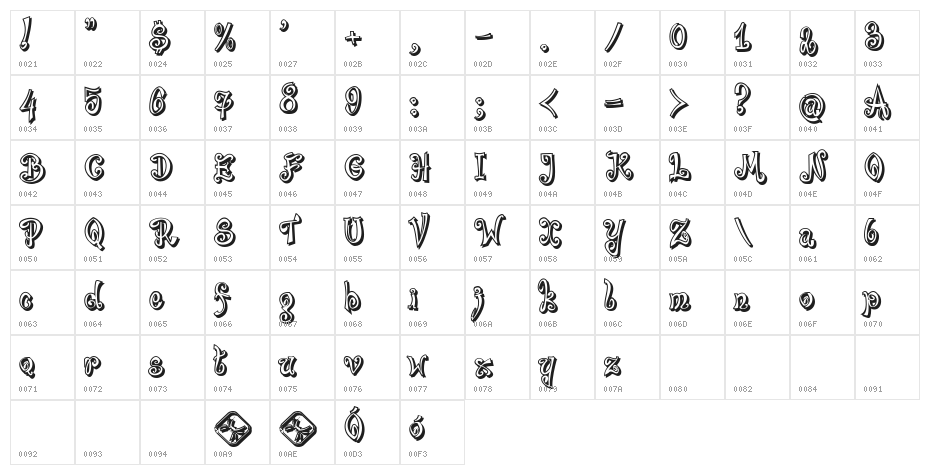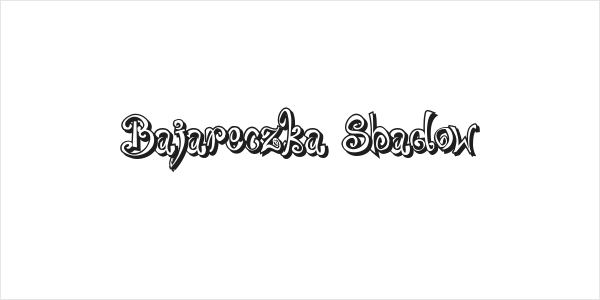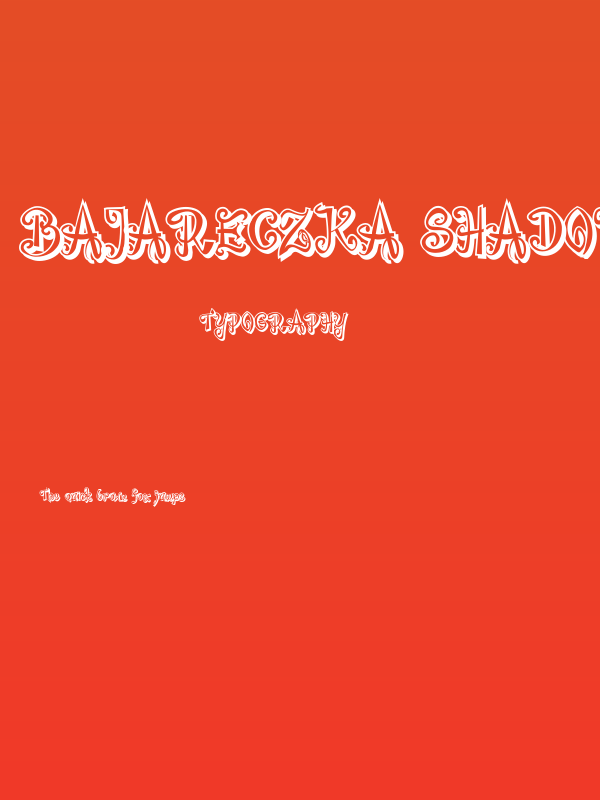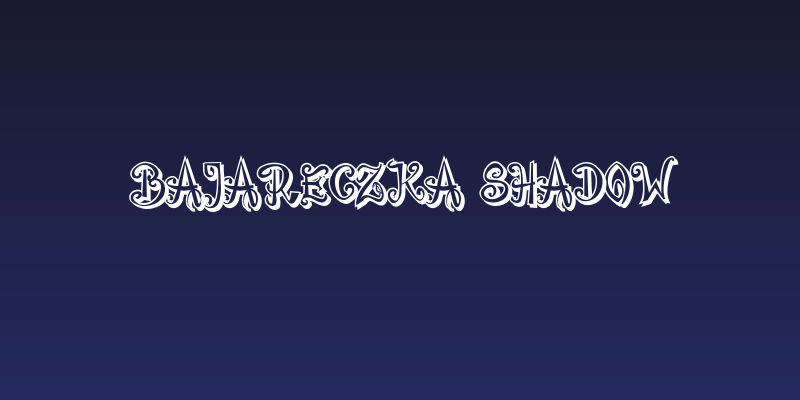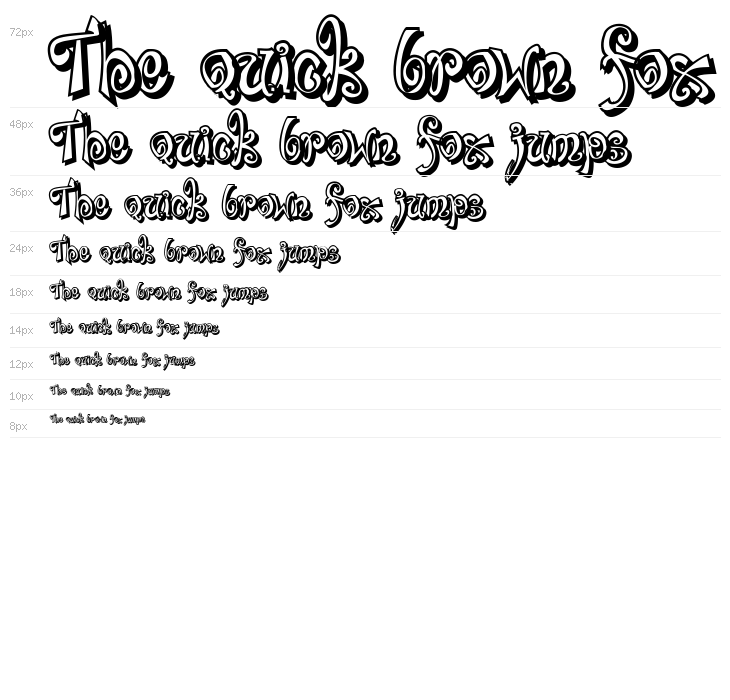
Bajareczka Shadow Font
Bajareczka Shadow Description
This font features a bold and decorative style with a shadow effect that gives it a three-dimensional appearance. The letters are intricately designed with flourishes and curves, creating a dynamic and eye-catching look. The uppercase and lowercase letters maintain a consistent style, with the shadow adding depth and emphasis. The numerals and special characters are equally stylized, ensuring a cohesive appearance across all elements. This font is ideal for projects that require a bold statement and a touch of artistic flair.
| Proposed Projects | Ideal for posters, logos, headlines, and any design needing a bold, artistic touch. |